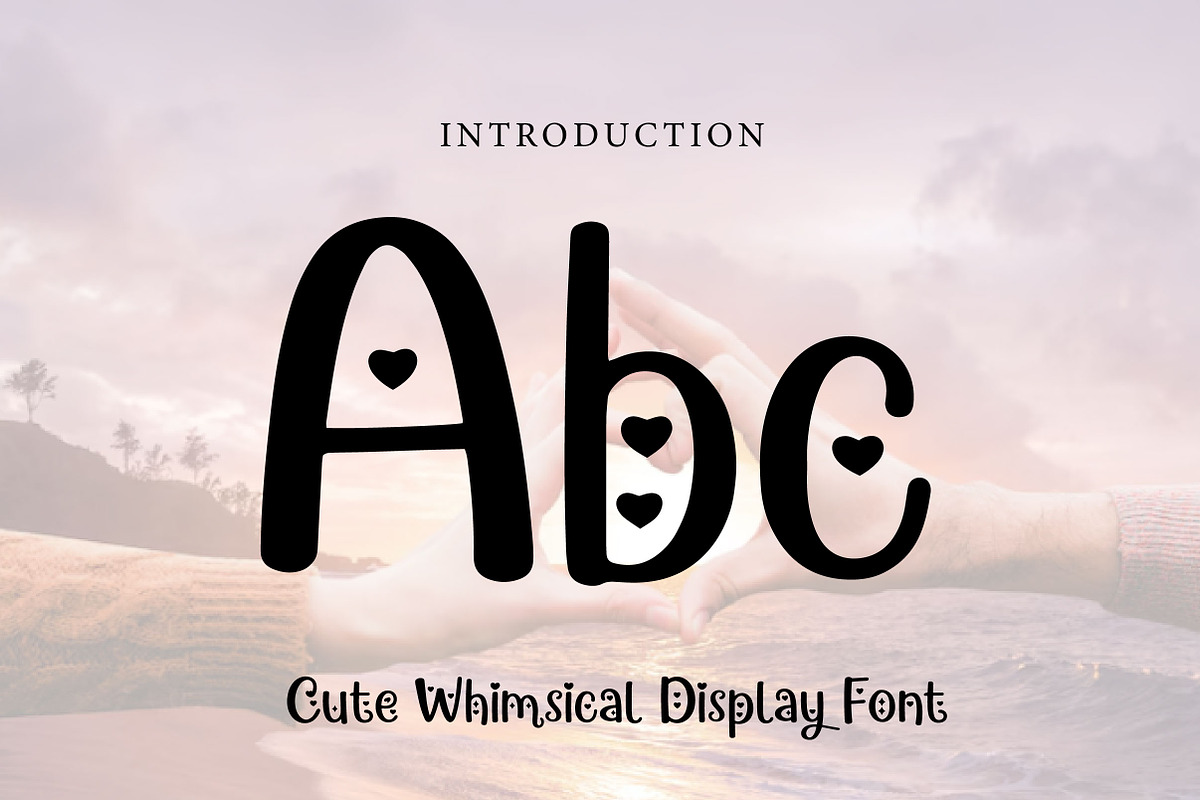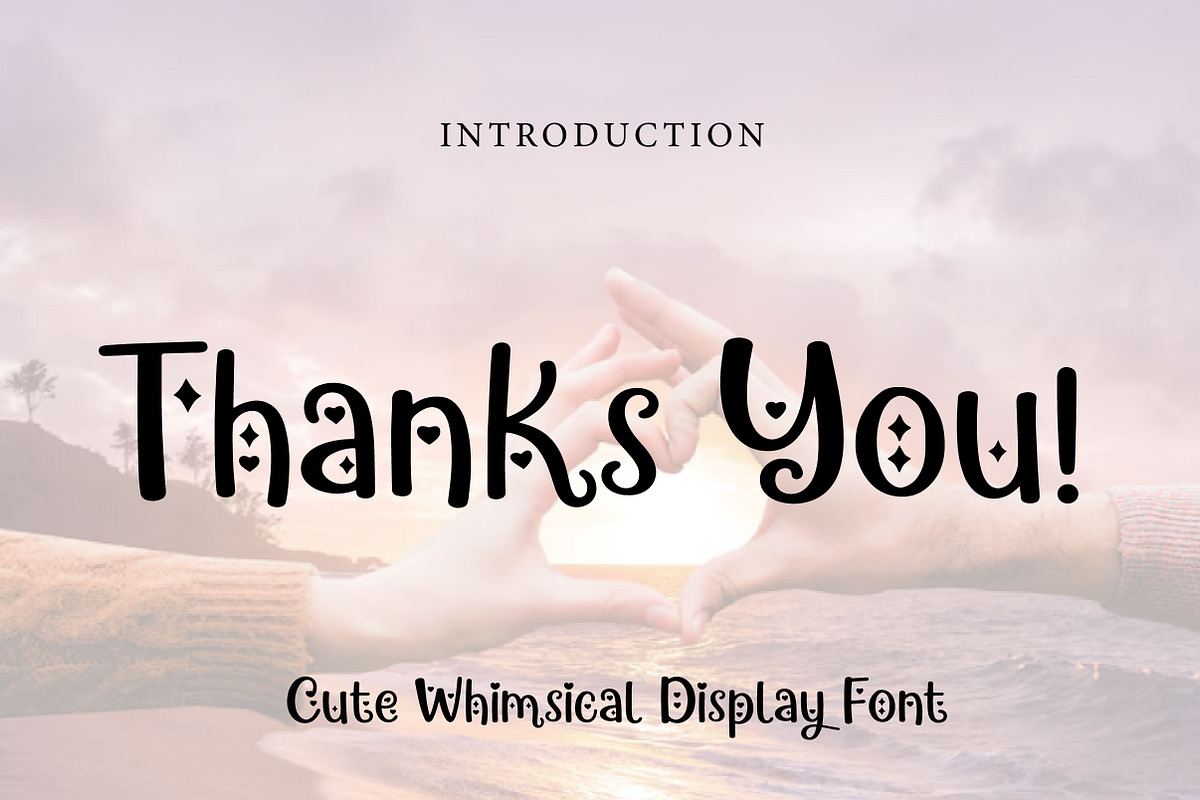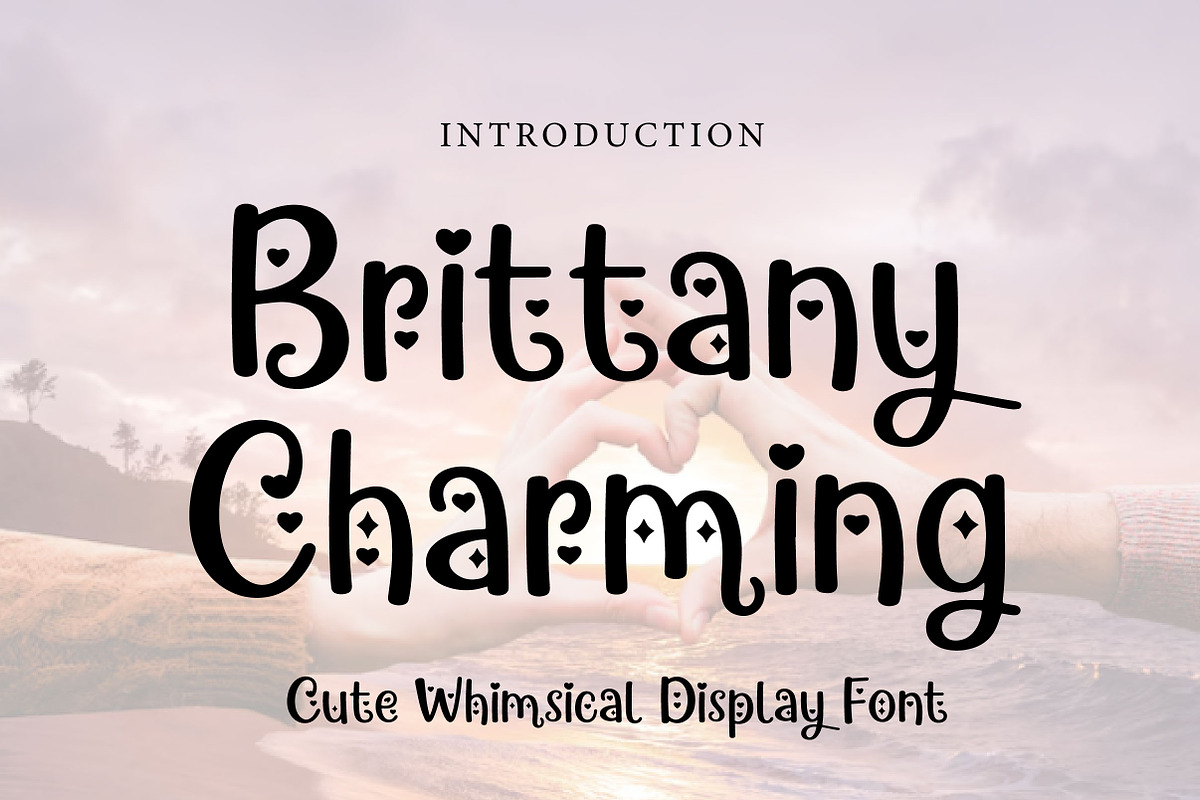
Brittany Charming
Brittany Charming – Cute Whimsical Display Font
Brittany Charming is a cute, whimsical, and playful display font with a handcrafted feel, perfect for kids designs, invitations, branding, packaging, and cheerful creative projects.
Brittany Charming is a delightful display font designed to bring sweetness, fun, and personality to your creative projects. With its rounded shapes, playful letterforms, and decorative inner details, this font creates a charming and imaginative look that instantly stands out.
Its handmade and whimsical style makes Brittany Charming perfect for designs that need a warm, friendly, and expressive touch. Whether you are creating birthday invitations, kids branding, nursery decor, stickers, packaging, posters, or social media graphics, this font adds a joyful and memorable character to your typography.
The unique decorative elements inside selected letters give it extra charm and make your text feel more creative and distinctive. Beautiful for both print and digital projects, Brittany Charming is a great choice for designers who want a font that feels playful, cute, and full of life.